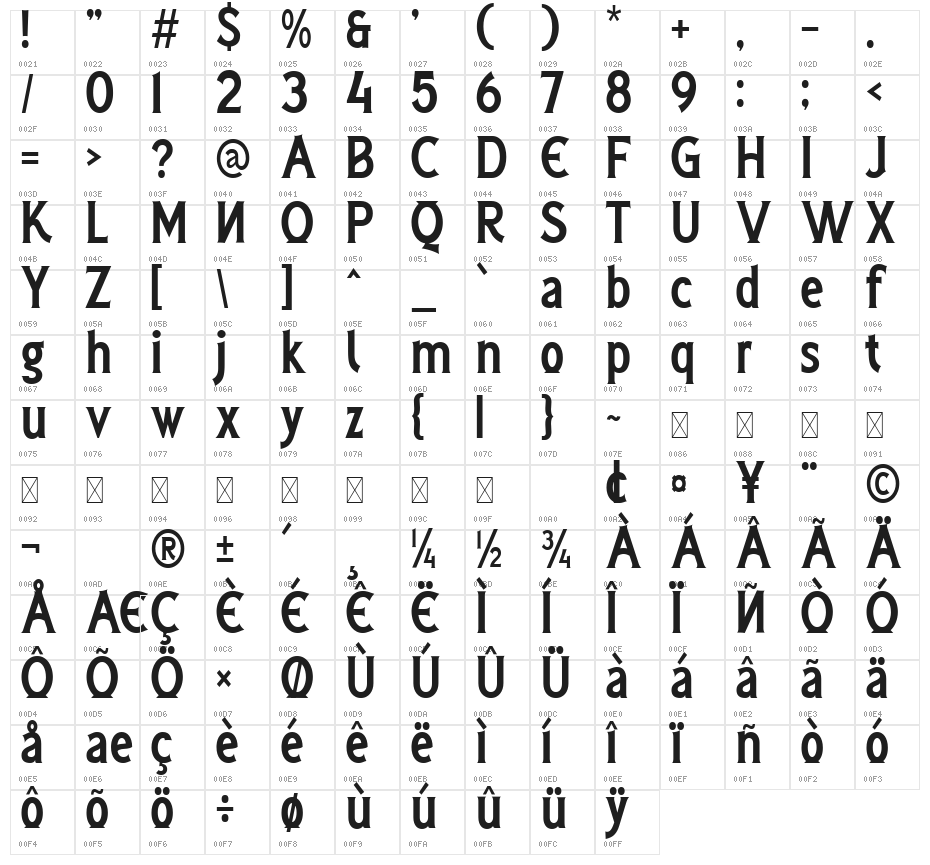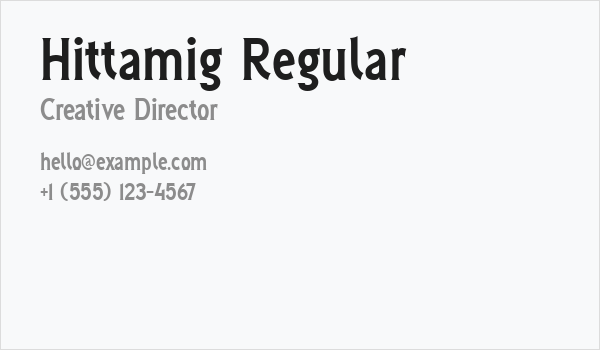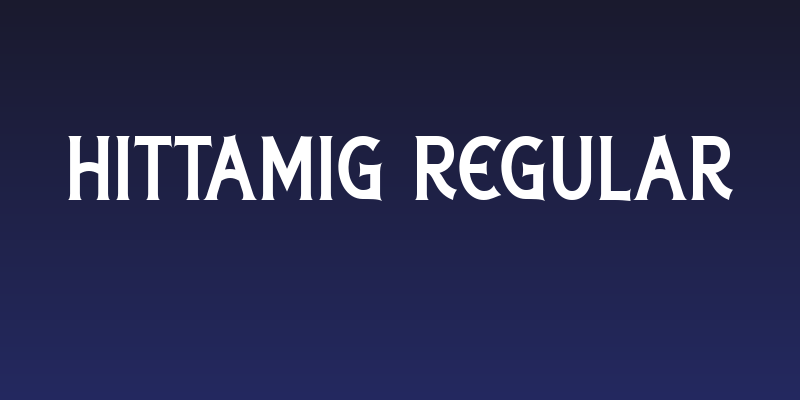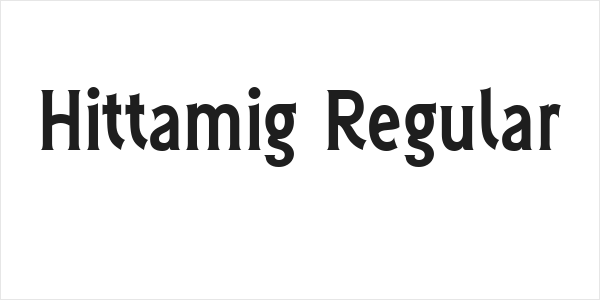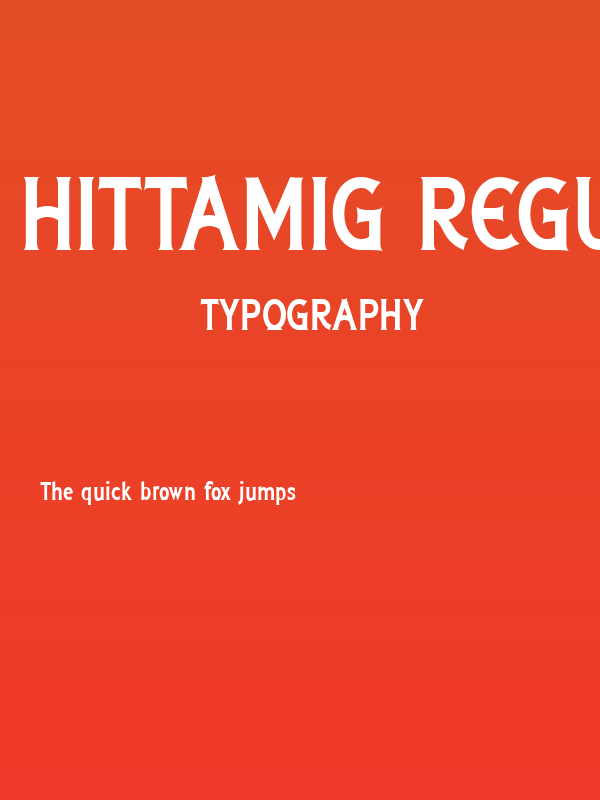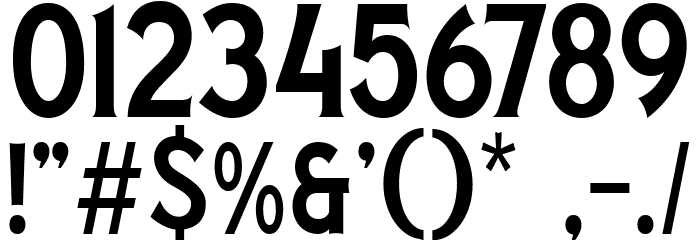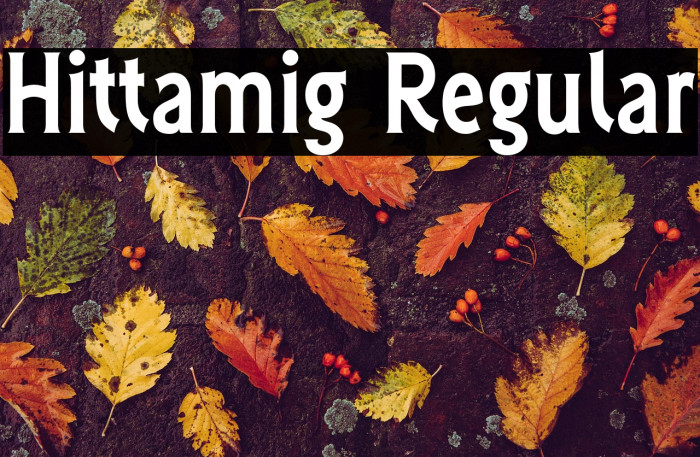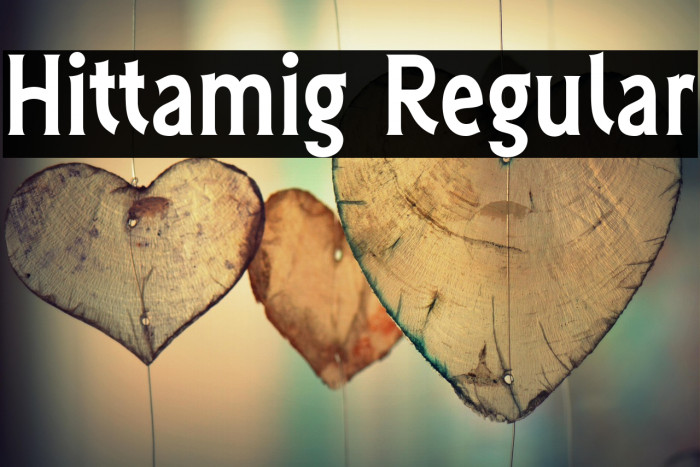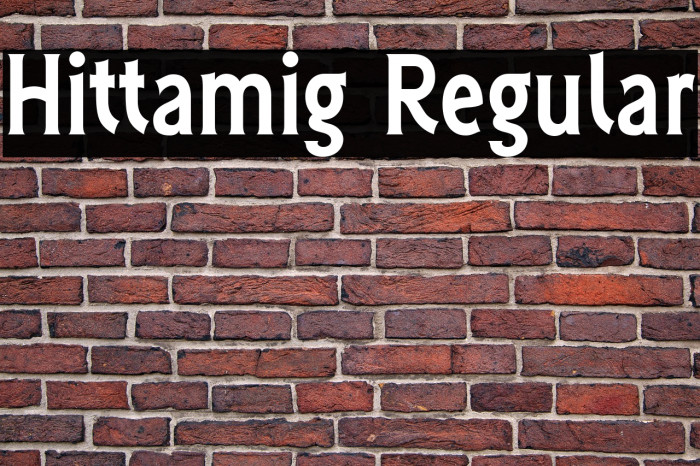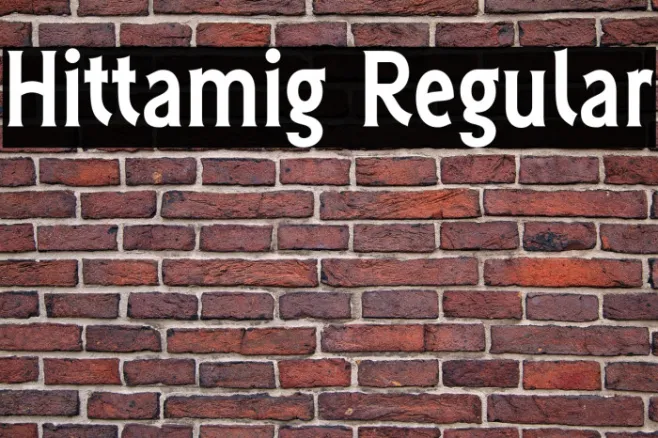
This font features a bold and assertive style with a modern twist. The characters are well-defined with a slight curvature that adds a touch of elegance. The uppercase letters are strong and commanding, while the lowercase letters maintain a consistent flow, making it versatile for various design needs. The numerals are clear and distinct, ensuring readability. Special characters are designed with the same boldness, offering a cohesive look across all glyphs. This font is suitable for projects that require a strong visual impact.
| Proposed Projects | Ideal for branding, headlines, posters, and advertising materials that require a bold statement. |